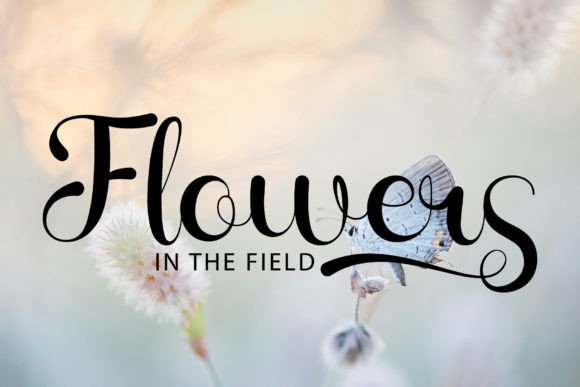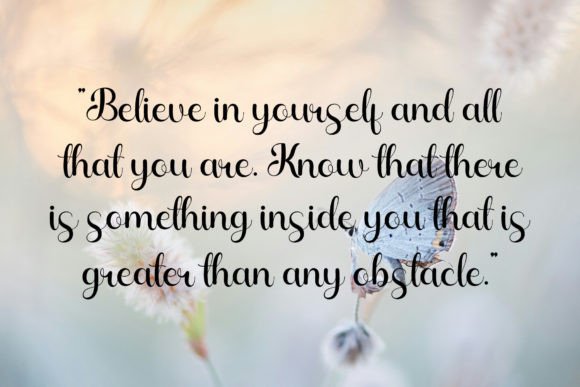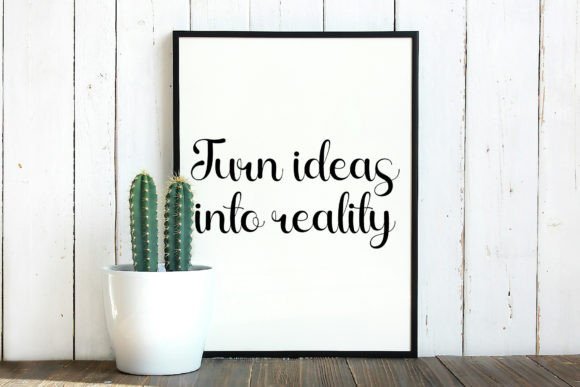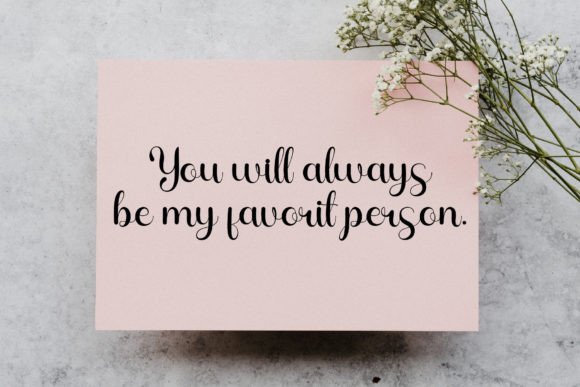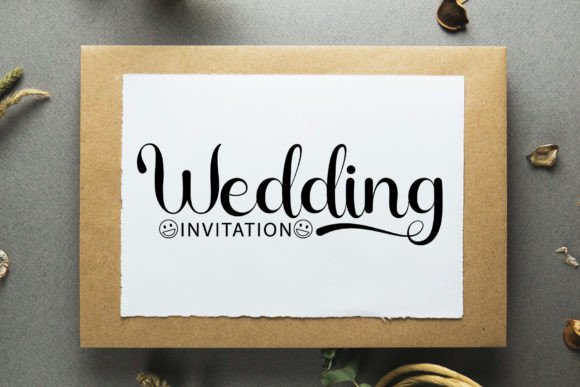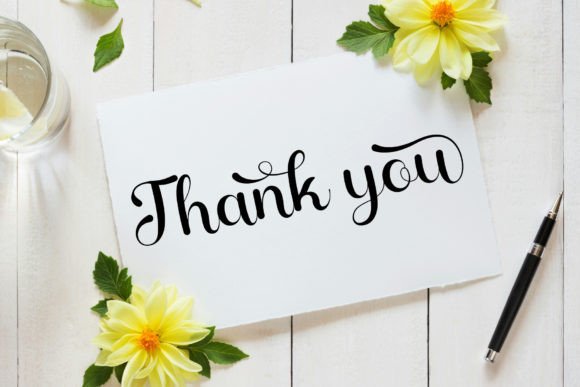
As a designer, you know the thrill of brainstorming a new project and envisioning the perfect aesthetic. It’s the moment when your ideas come alive, and you can almost see the finished product in your mind’s eye. For me, it’s often the perfect font that sets the tone for an entire design. And that’s exactly what I discovered when I stumbled upon the enchanting Butterfly Font.
This beautiful handwritten font is a masterclass in elegance, making it the perfect choice for everything from wedding invitations to business cards. With its PUA encoding, designers can access all the glyphs and alternates with ease, giving them the freedom to get creative. Whether you’re a seasoned pro or just starting out, the Butterfly Font is an invaluable addition to any design arsenal.
Butterfly Font Key Features
- Unique Characteristics: The Butterfly Font features a unique, hand-drawn design with intricate details and flourishes, making it ideal for creative and artistic projects.
Designer Review: Butterfly Font
Overall, I think the Butterfly Font has a unique charm to it, but it’s not without its limitations. Let’s dive in and explore what works well and what doesn’t.
- The Butterfly Font has a lovely, whimsical feel to it, making it perfect for creative projects like children’s books, posters, and other eye-catching designs.
- The font is highly customizable, with a wide range of options for color, size, and spacing, making it easy to tailor to your specific design needs.
- The font is also quite legible, even at smaller sizes, which is a major plus for designers who need to ensure their text is easy to read.
- The font may not be the best choice for formal or professional designs, as it can come across as a bit too playful or childish.
- The font’s curves and flourishes can sometimes make it difficult to read at very small sizes or in low-resolution formats.
- The font may require additional styling or formatting to make it work well in certain design contexts.
Overall, I think the Butterfly Font is a fun and creative option for designers who need a unique, eye-catching font for their projects. While it may not be suitable for every design context, it’s definitely worth considering for the right projects.
Tips for Getting the Most Out of the Butterfly Font
Here are a few tips for getting the most out of the Butterfly Font:
- Use the font in conjunction with other playful, whimsical elements to create a cohesive design.
- Use the font to add a touch of elegance and sophistication to your design.